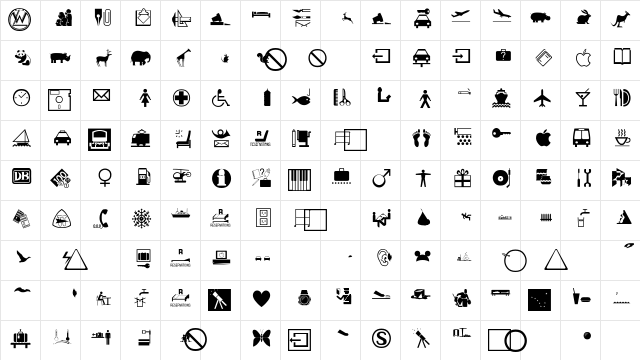
InterSymb Regular
Design Context for InterSymb Typeface
InterSymb takes a measured approach to typography — its balanced proportions and neutral character make it a reliable workhorse for both digital and print work.